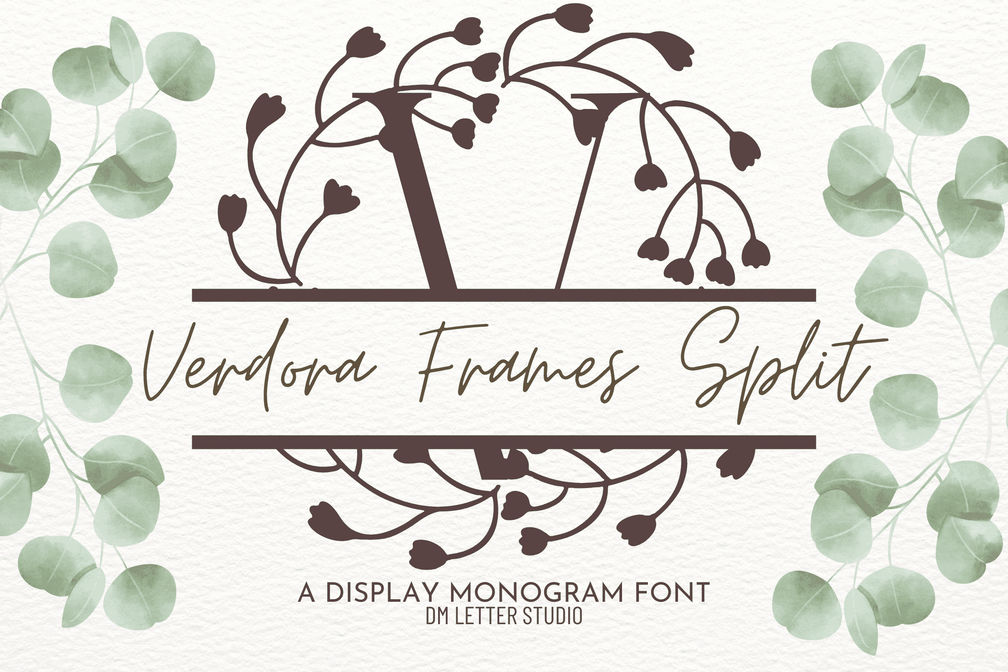
Verdora Frames Split Monogram
Verdora Frames Split Monogram – Botanical Frame Split Monogram Font
Verdora Frames Split Monogram is an elegant serif monogram font framed in delicate leafy outlines, featuring a centered split across each uppercase letter. This makes it easy to personalize your designs with names, initials, or dates—while maintaining a nature-inspired, professional look. Ideal for weddings, branding, stationery, and custom gift designs, this font offers both structure and organic charm.
• Split Monogram Layout: A clean horizontal space allows for easy customization and personalization.
• Botanical Frame Style: Each letter is surrounded by a decorative leafy border, combining structure with elegance.
• Perfect for Wedding & Gift Designs: Great for invitations, signage, logo mockups, and Cricut or Silhouette projects.
• Complete Character Set: A–Z uppercase letters, numerals, punctuation, and multilingual accents.